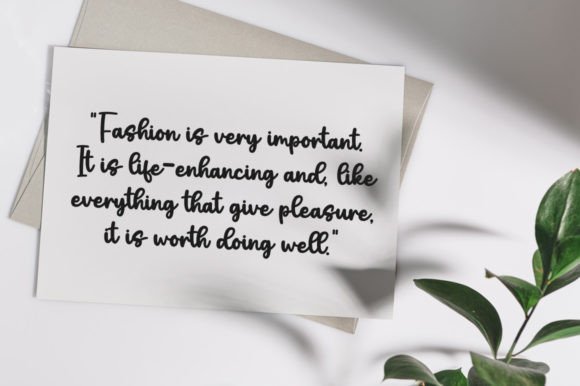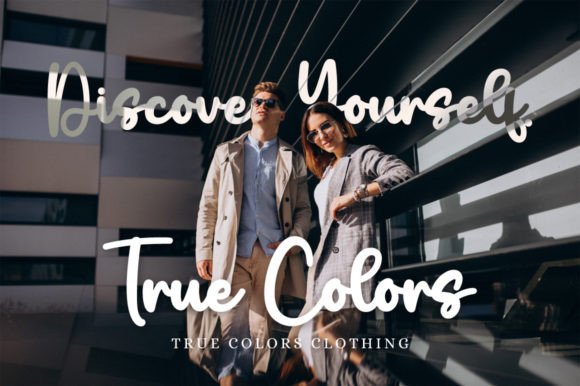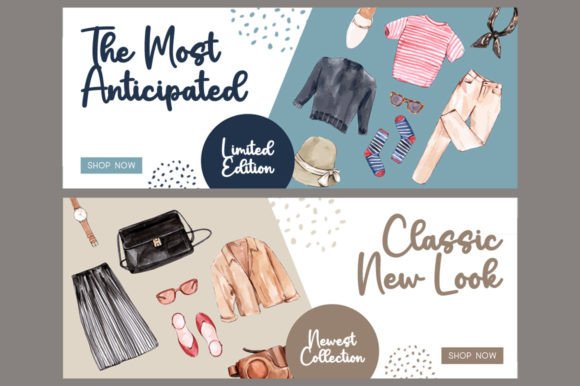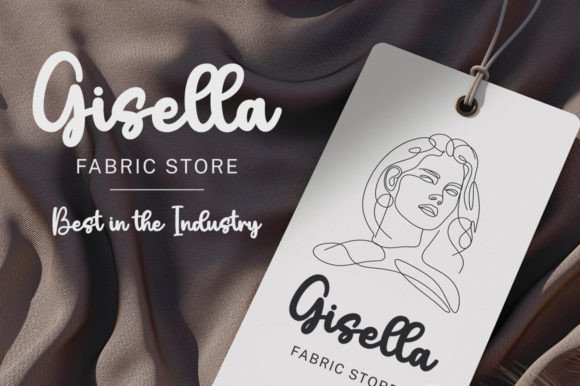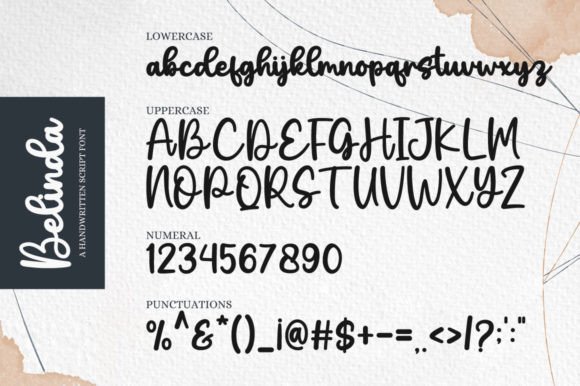
Belinda Font
About Belinda Font
Belinda is a lovely and timeless handwritten font. It is the best choice for creating eye-catching logos, branding, and quotes.